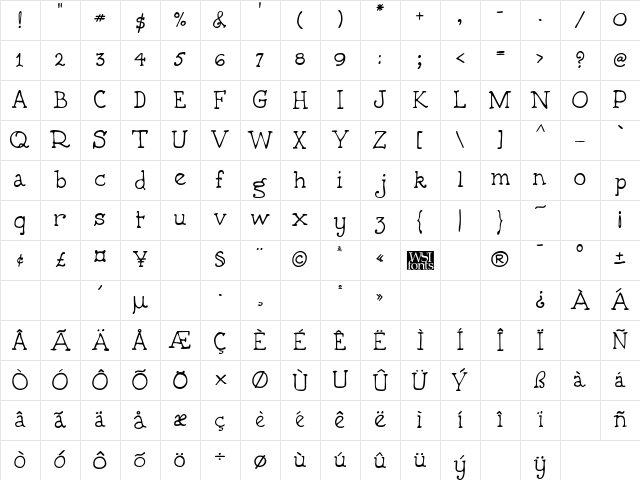
5thGrader Regular Free Font
5thGrader Regular
Design Context for 5thGrader
5thGrader is a composed and adaptable typeface that performs quietly and consistently across a wide range of design contexts.